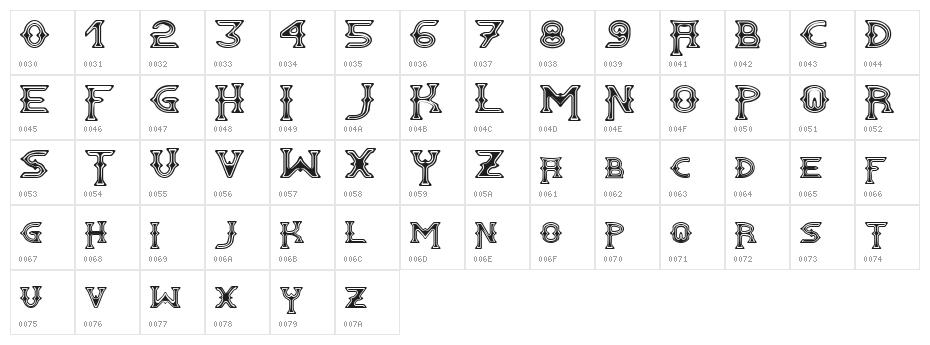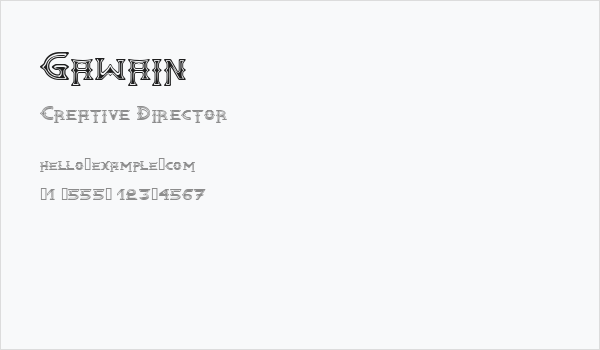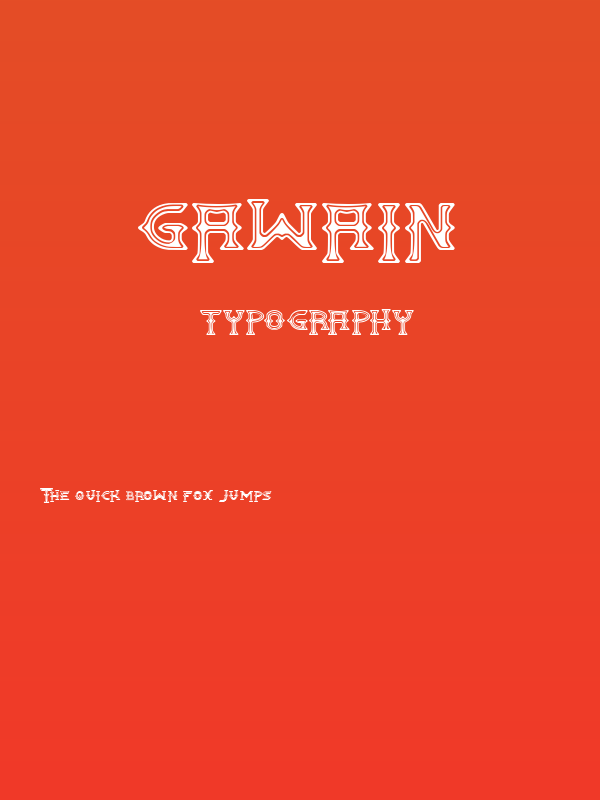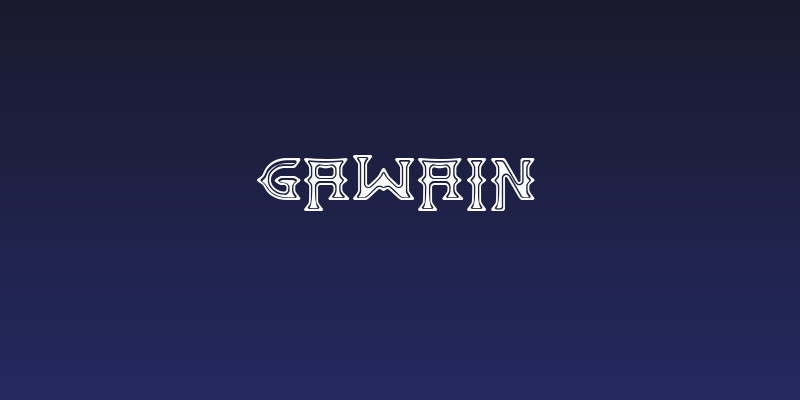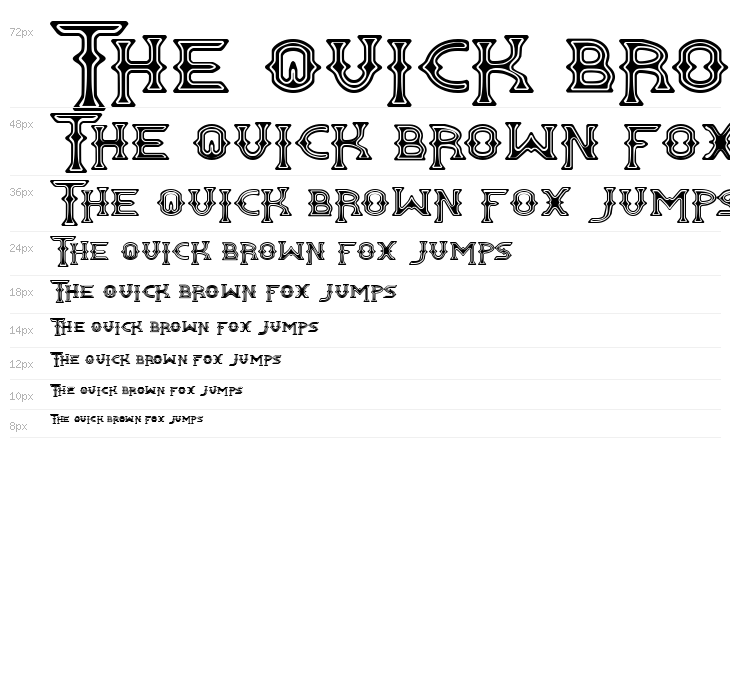
Gawain Font
Gawain Description
This font features a bold and decorative style with a unique, medieval-inspired design. The characters are outlined with a double-layered effect, giving them a three-dimensional appearance. Each letter has intricate detailing, reminiscent of gothic architecture, with sharp angles and pointed serifs. The numbers follow the same ornate style, maintaining consistency across the character set. The special characters are also designed to match the overall aesthetic, making this font ideal for projects that require a historical or fantasy theme.
| Overall Style | Medieval, Gothic, Decorative |
| Proposed Projects | Ideal for fantasy-themed posters, book covers, video game titles, and historical event invitations. |